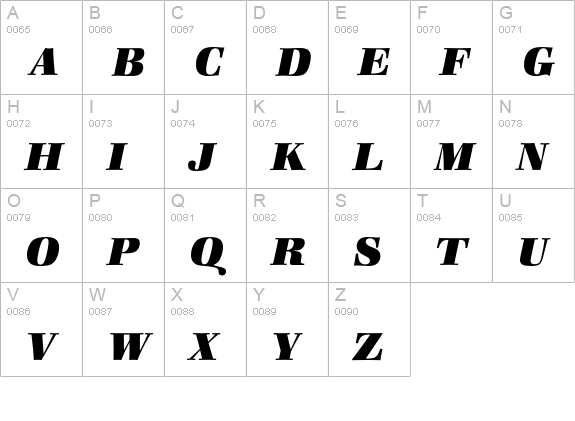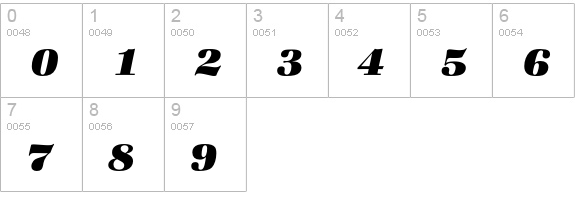
ZapfBookEF-HeavyItalic is a striking and bold font that exudes elegance and sophistication. With its heavy weight and stylish italicized design, this font is perfect for making a bold statement in any design project. Whether used for headlines, titles, or logos, ZapfBookEF-HeavyItalic commands attention and adds a touch of class to any layout. The best part? ZapfBookEF-HeavyItalic is available for free download at FontsMarket.com. This means you can easily access this premium font without having to break the bank. So why wait? Elevate your designs with the timeless appeal of ZapfBookEF-HeavyItalic today!